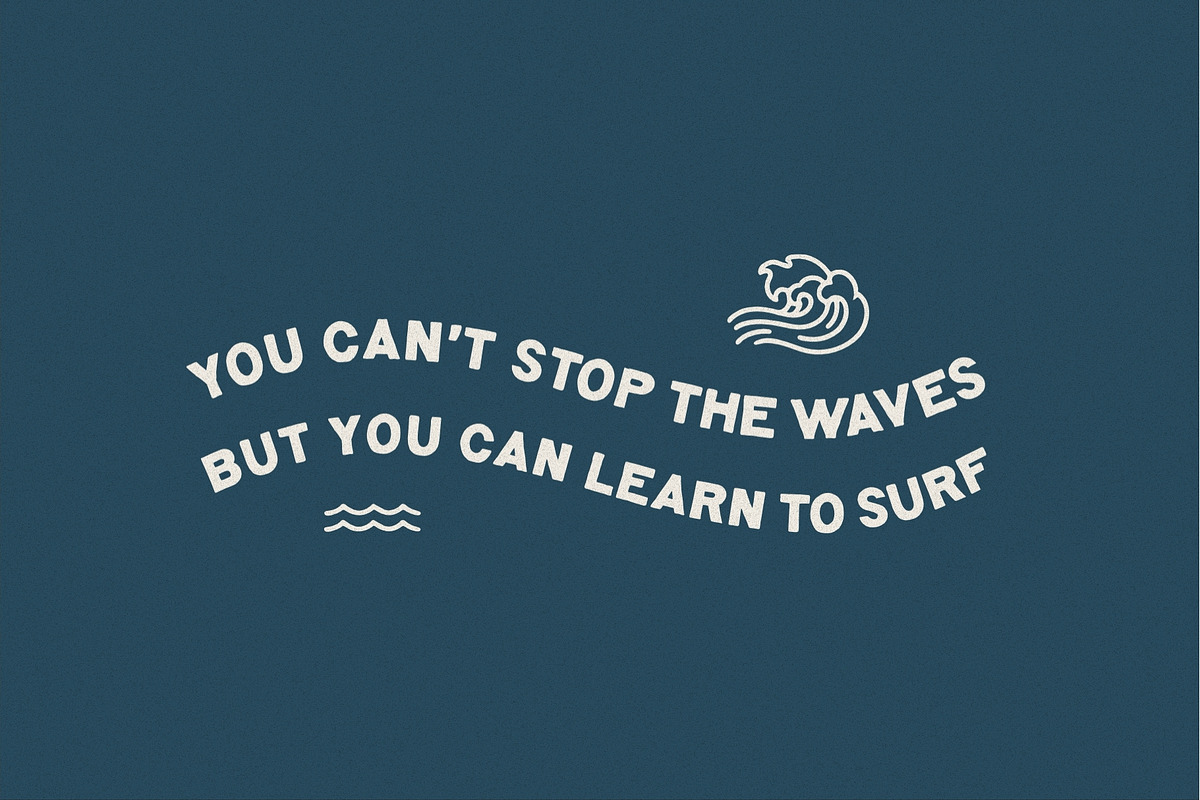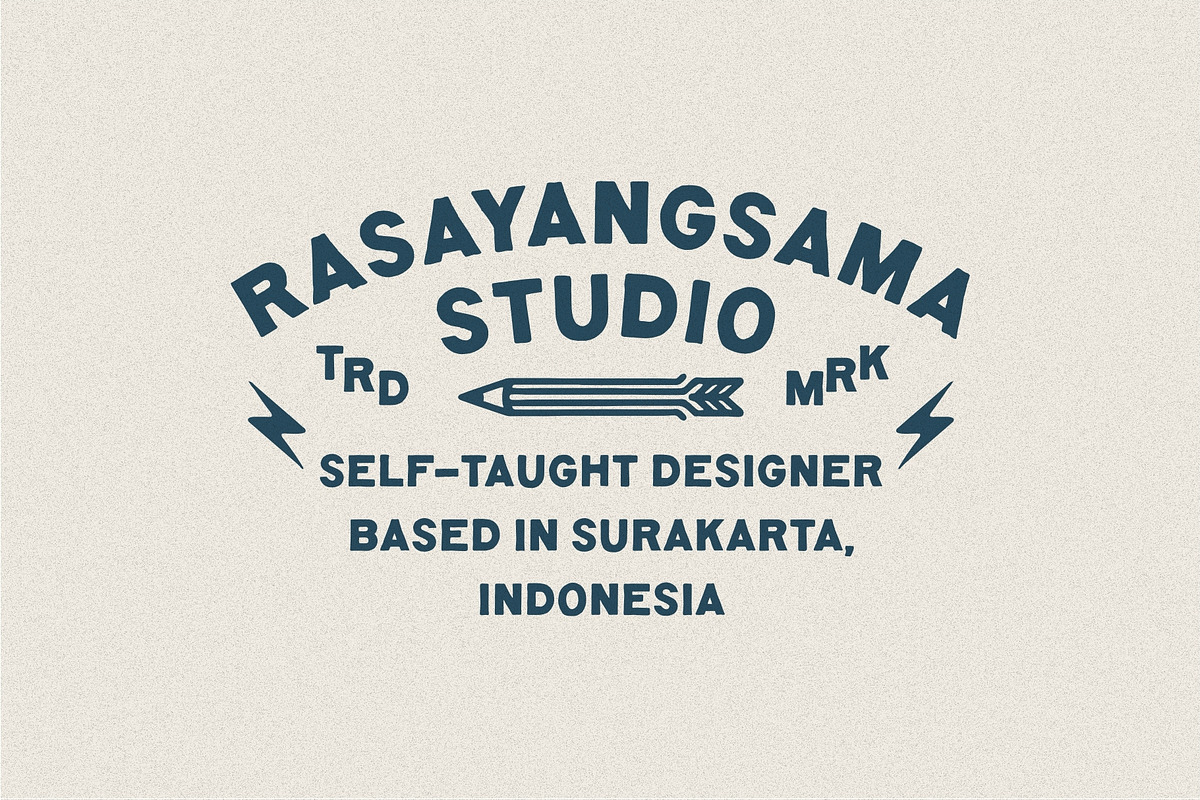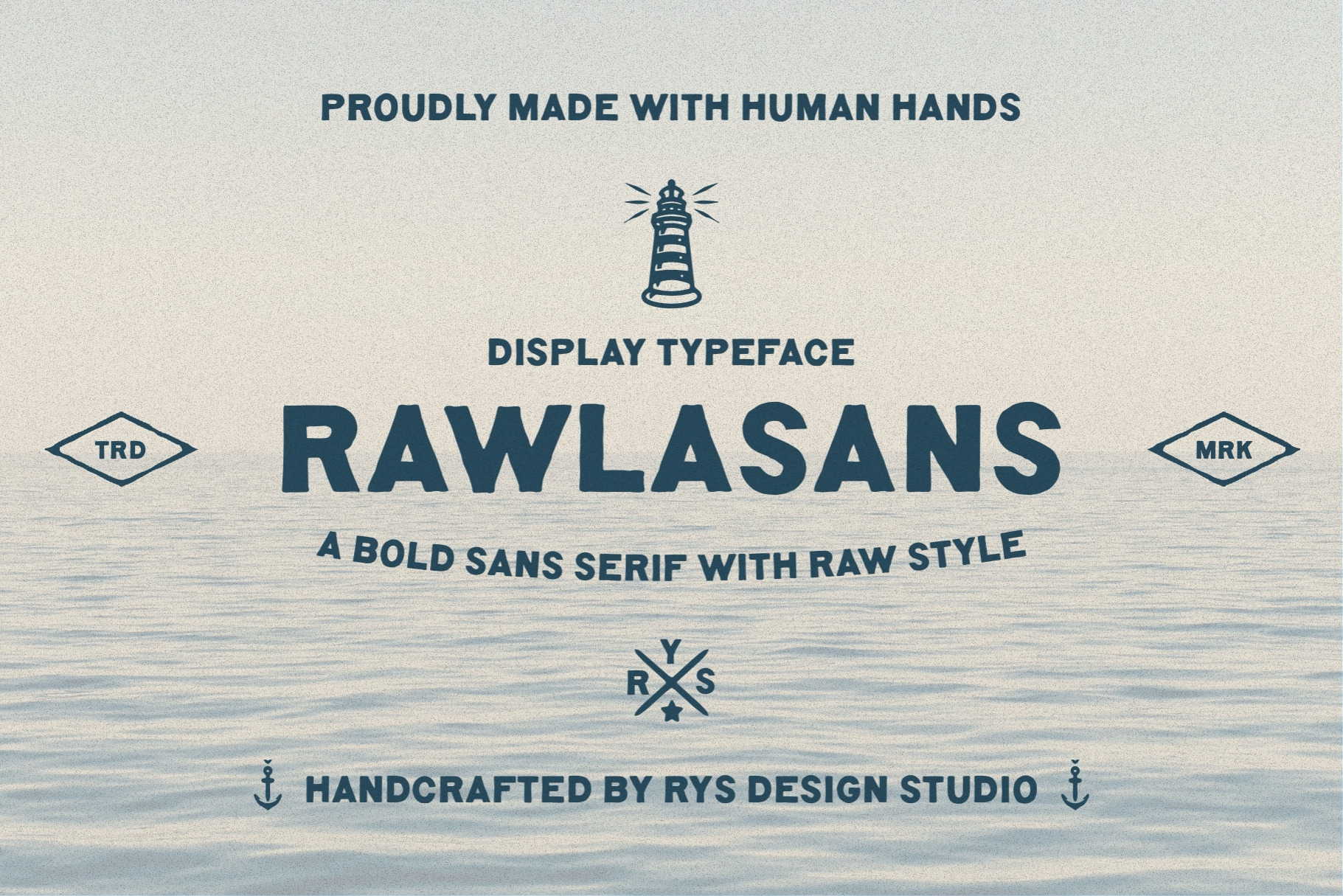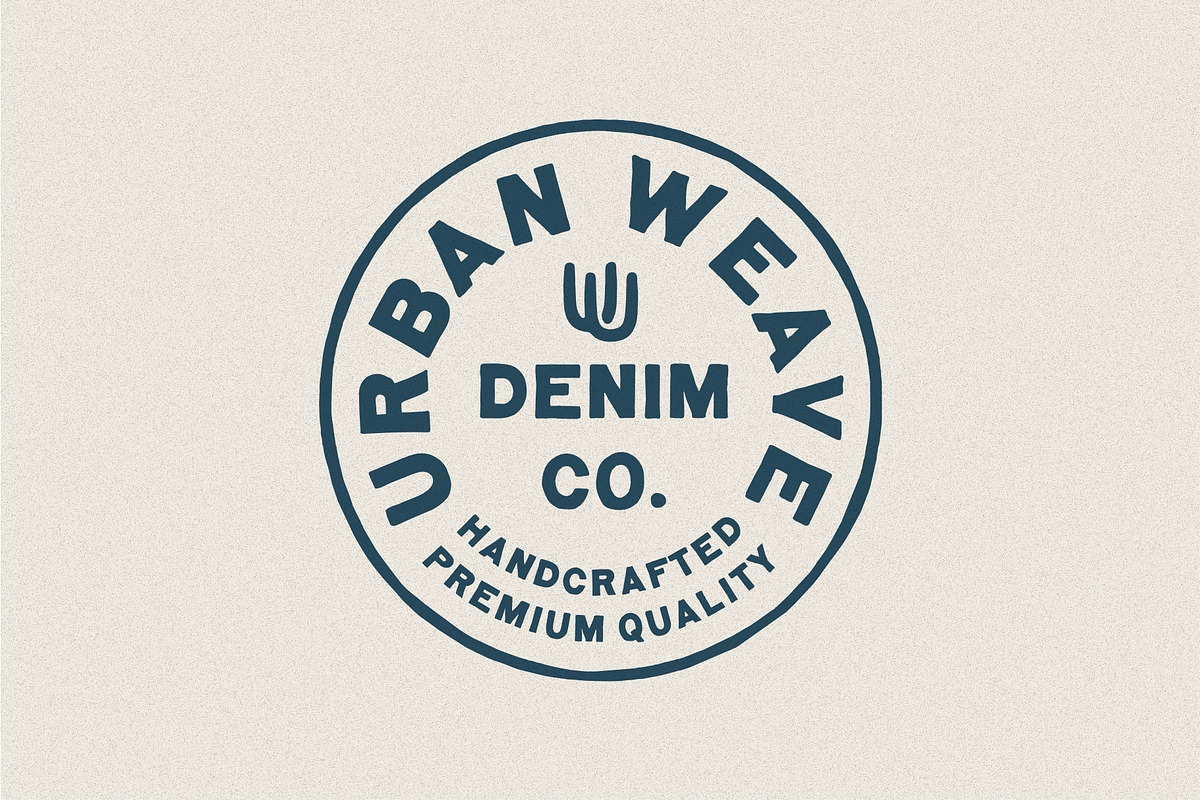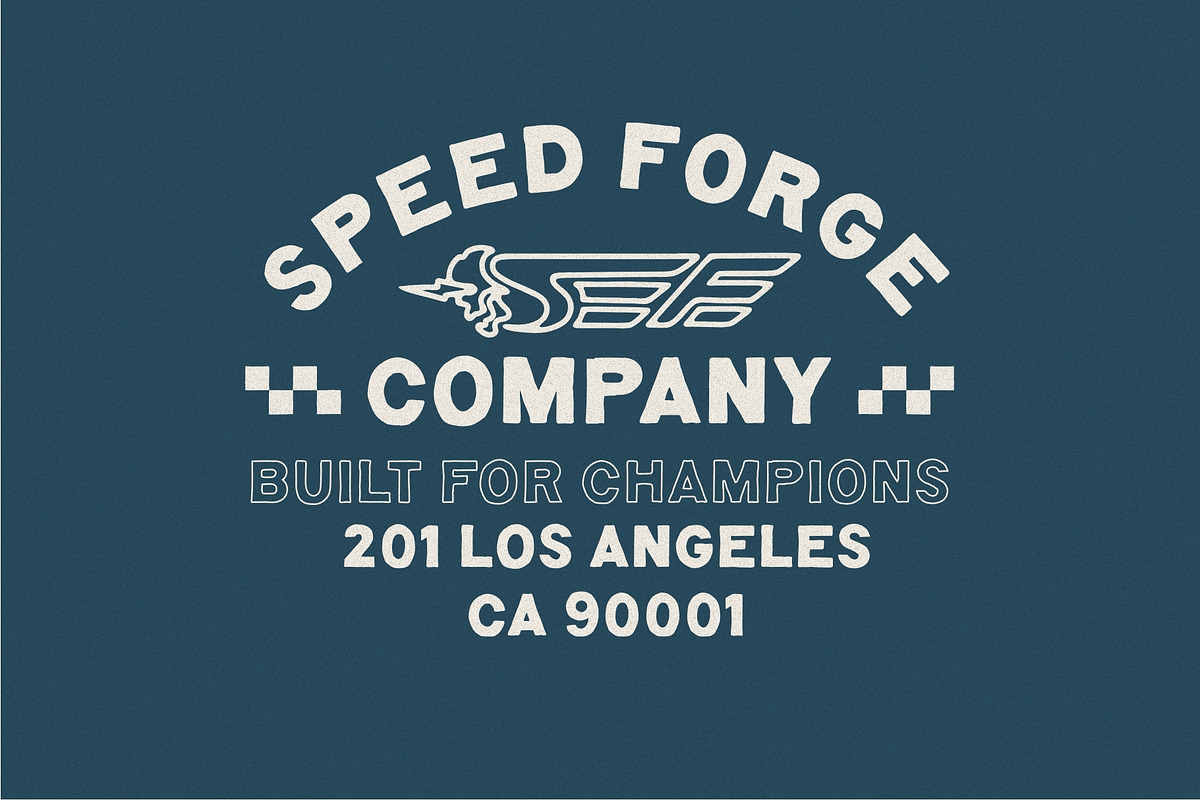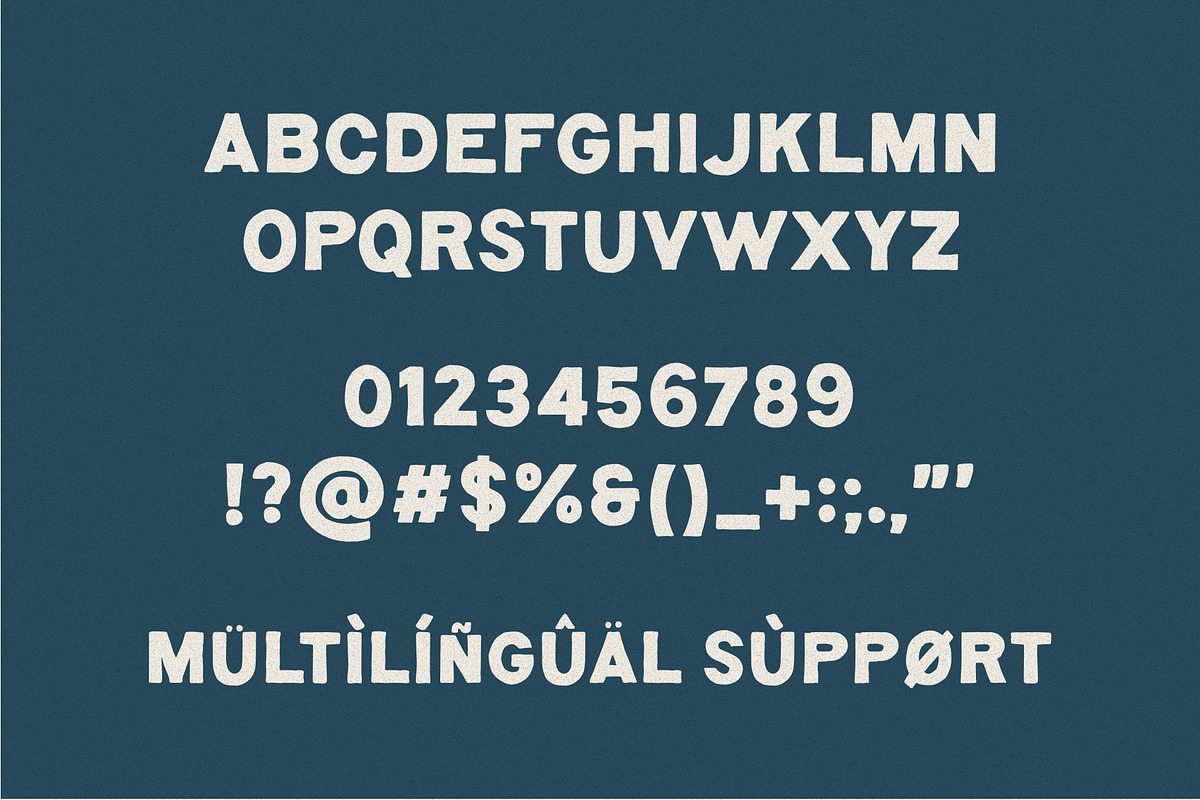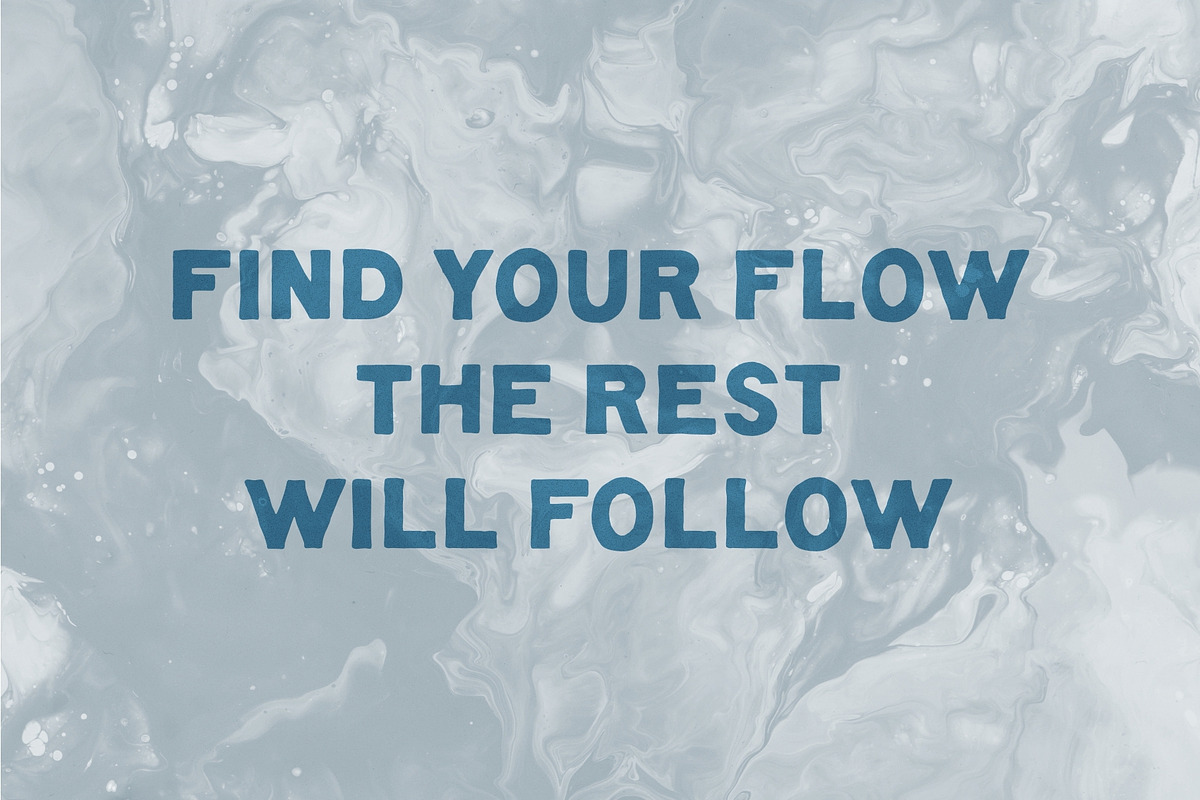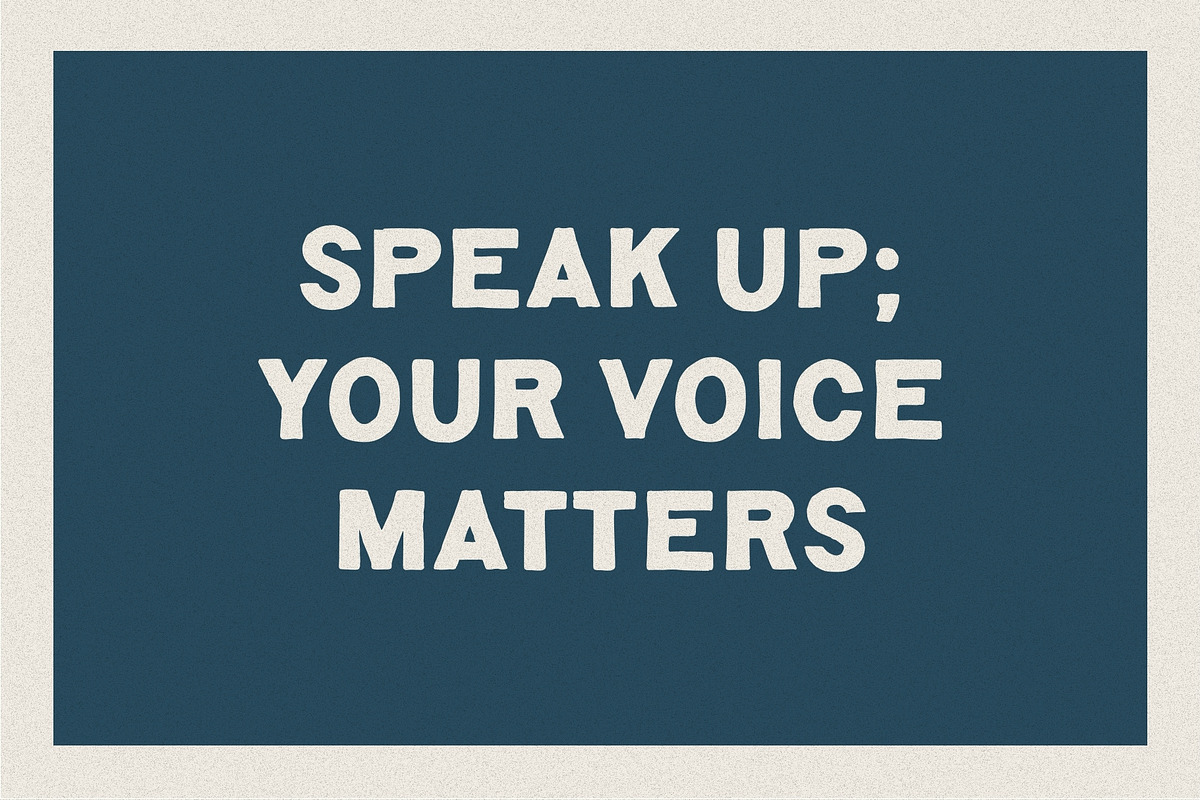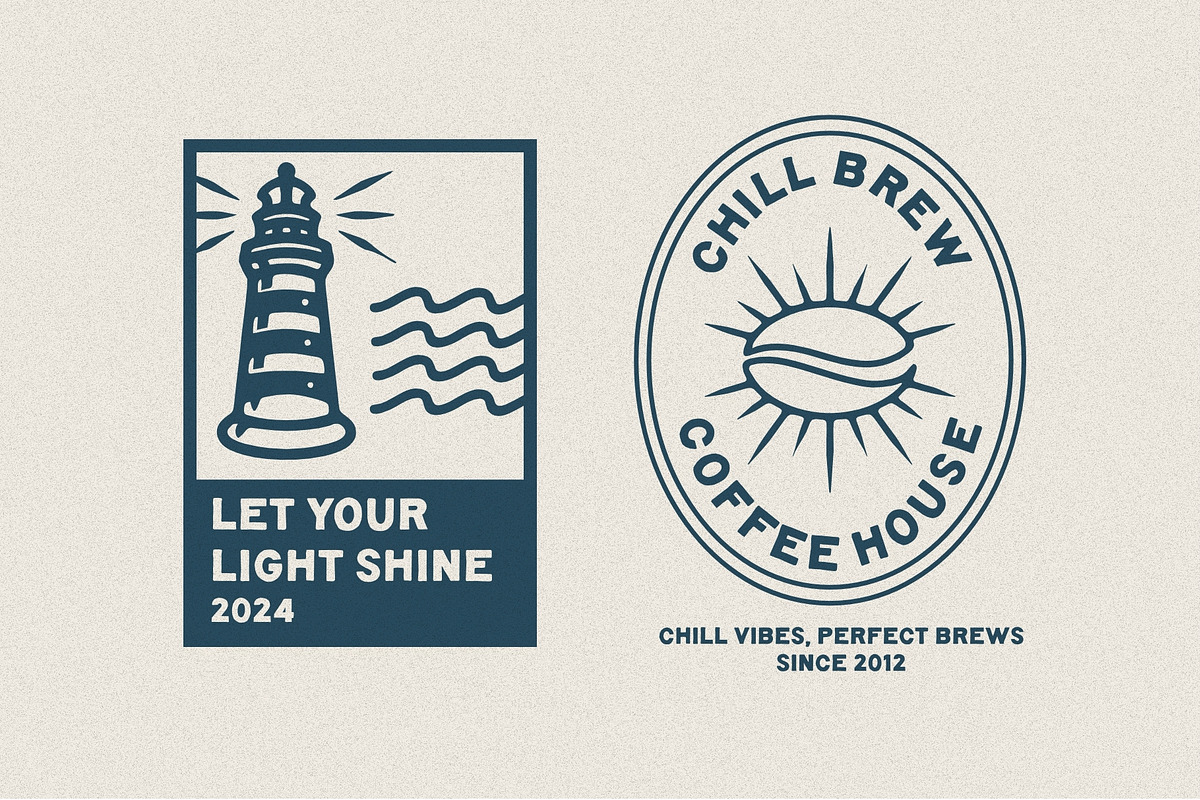
Rawlasans - A Handmade Font
Introducing RAWLASANS is a Handmade Font
A bold sans serif display typeface with a raw style, handcrafted with human hands. Inspired by authentic creations that embrace imperfection but this font is perfect for displays and logos, as well as for apparel design, quotes, packaging, merchandise, signs, or anything that needs an original handmade feel.
fyi, Rawlasans is derived from the Javanese word "rolasan," which means taking a break during work hours. It serves as a reminder of the importance of pausing to breathe in every journey. May your days ahead be filled with meaning.
- A-Z all caps characters
- Numbers, Symbol, Punctuation
- Multilingual Language Support